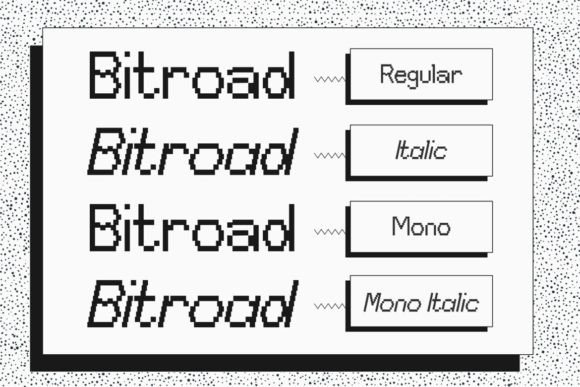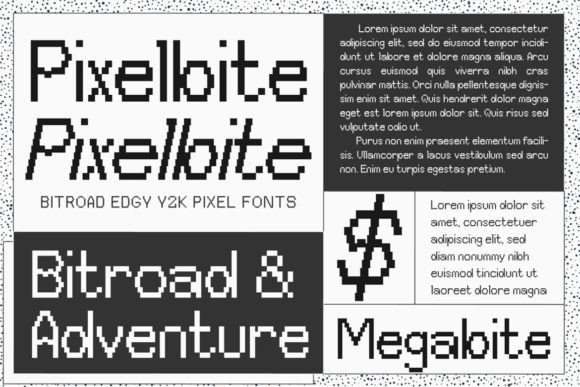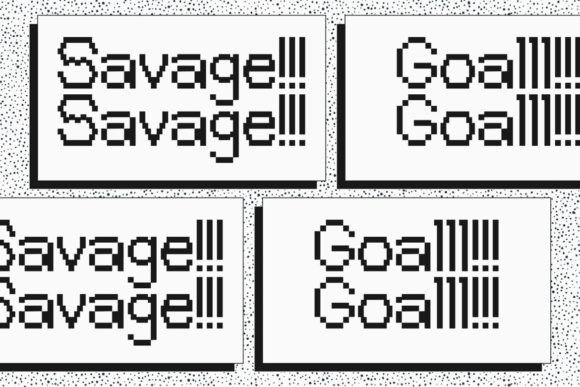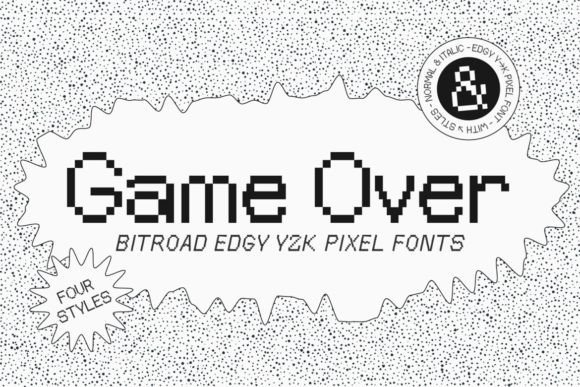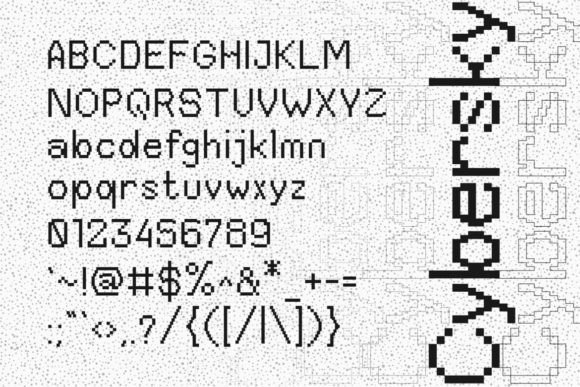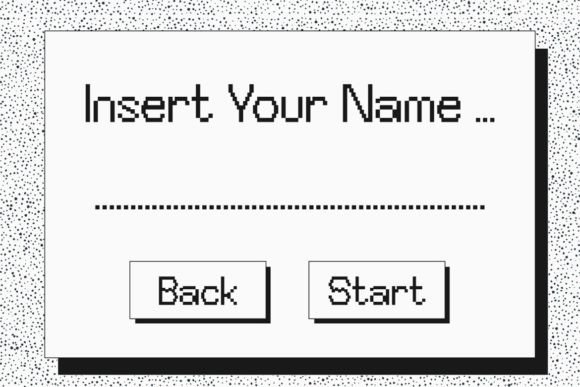
The Retro Revival: Unpacking the Bitroad Font
I’ll never forget the struggle I faced while working on a retro-themed project for a client. The brief was simple: create a bold, eye-catching design that screamed nostalgia. But, as I scrolled through font libraries, I found myself stuck. Nothing seemed quite right – until I stumbled upon the Bitroad Font. This edgy pixel Y2K font combines the best of 80s and 2000’s styles, bringing a playful yet impactful touch to any project.
First Impressions: A Love Letter to Bitroad
Bitroad Font is more than just a font – it’s a design statement. Here are the things I love about it:
- ✨ Retro charm: Bitroad’s pixelated aesthetic instantly transports me to the good old days of 8-bit games and early internet.
- ✅ Versatility: With four styles to choose from – normal, italic, monospaced, and mono-italic – I can adapt Bitroad to suit various design needs.
- 💻 Multilingual support: This font supports multiple languages, making it perfect for global projects.
- 📈 Scalability: Bitroad works beautifully in both large and small sizes, ensuring it looks great on any platform.
The Not-So-Perfect: A Few Quirks
No font is perfect, and Bitroad has a few minor limitations:
- 🤔 Limited use in formal designs: Bitroad’s bold, playful nature might not be suitable for very formal or professional projects.
- ⚠️ Glyph support: While Bitroad supports multilingual characters, some less common glyphs might not be included.
The Story Behind Bitroad: A Designer’s Inspiration
Bitroad Font was created with a passion for retro design and a love for pixel art. The designer aimed to capture the essence of 80s and 2000’s styles, blending nostalgia with modern versatility. The result is a font that’s both playful and impactful, perfect for a wide range of design projects.
| Font Name | Bitroad Font |
| Author | pradiptacreative |
| What type of projects is Bitroad Font best suited for? | Bitroad Font is perfect for bold, retro-inspired designs, such as headlines, logos, pixel games, 8-bit game interfaces, and editorial use. |
| Is Bitroad Font available in multiple languages? | Yes, Bitroad Font supports multiple languages, making it a great choice for global projects. |
| Can I use Bitroad Font in both digital and print designs? | Absolutely! Bitroad Font works beautifully in both digital and print designs, making it a versatile addition to your font library. |